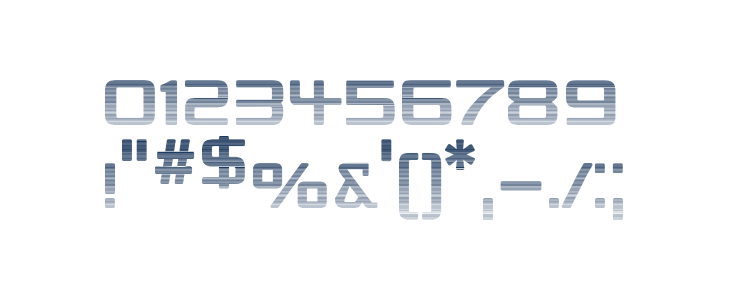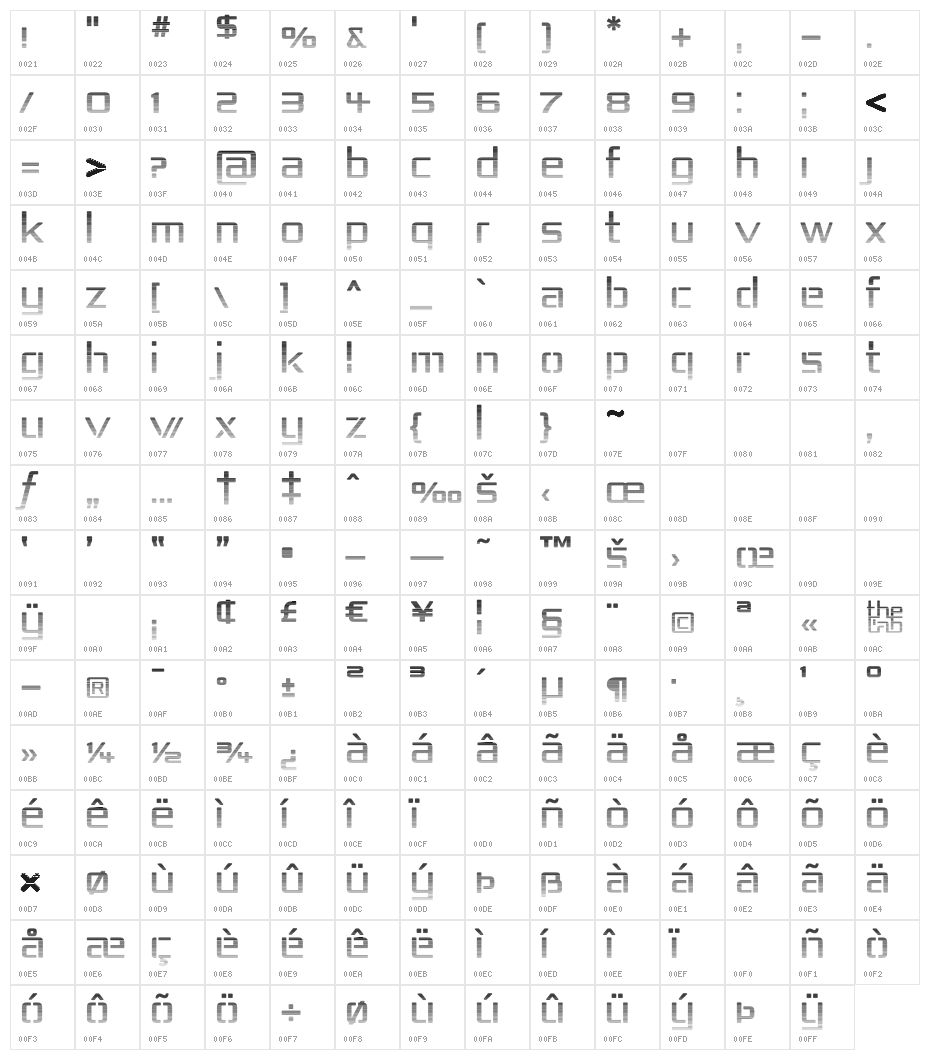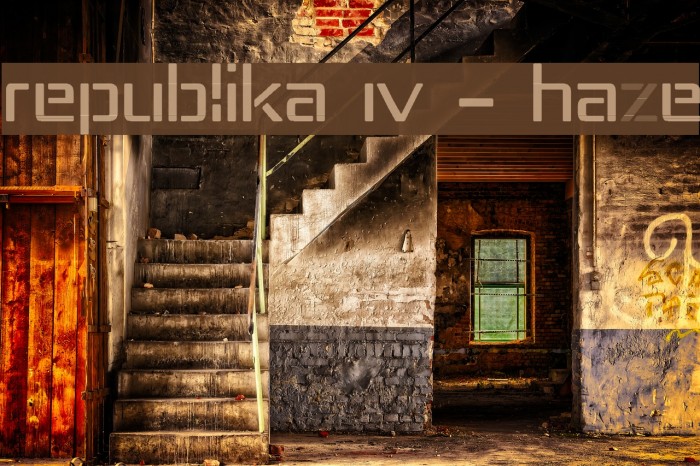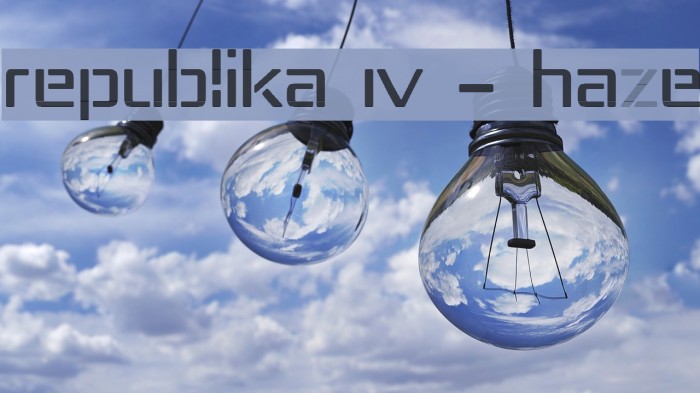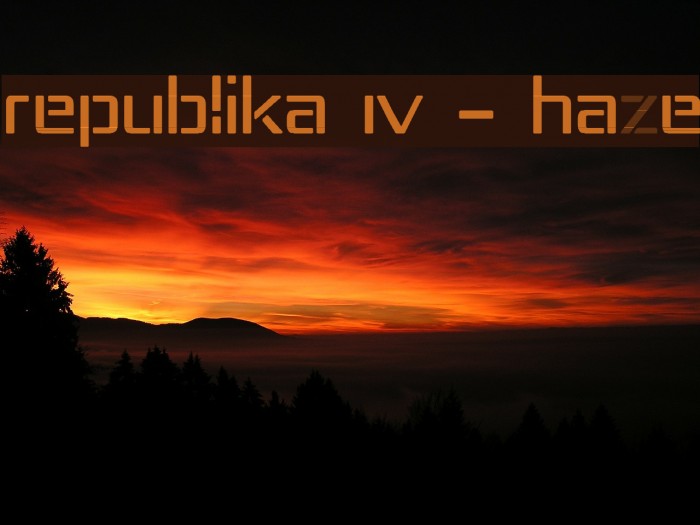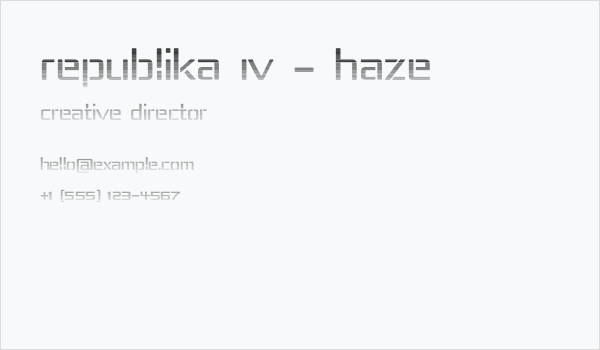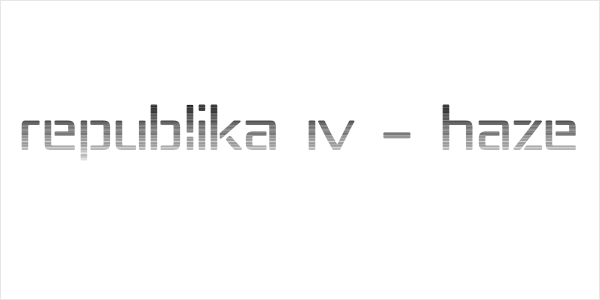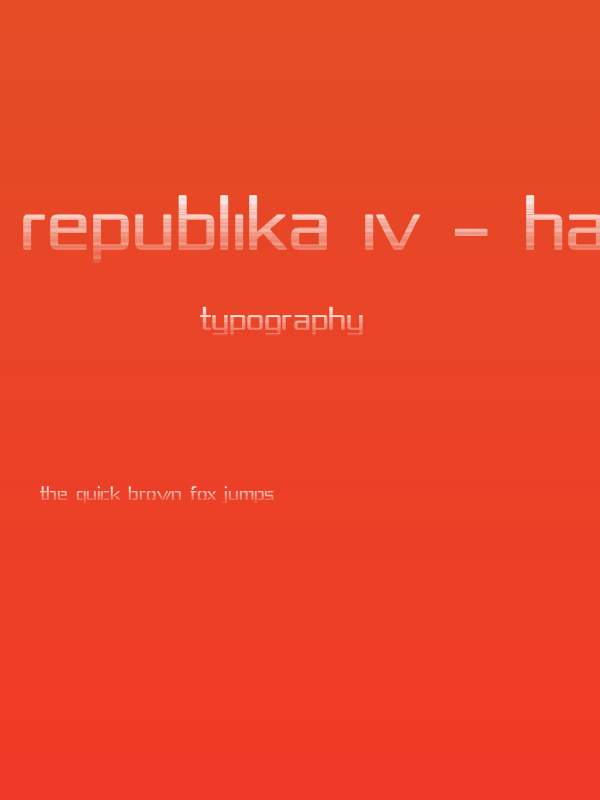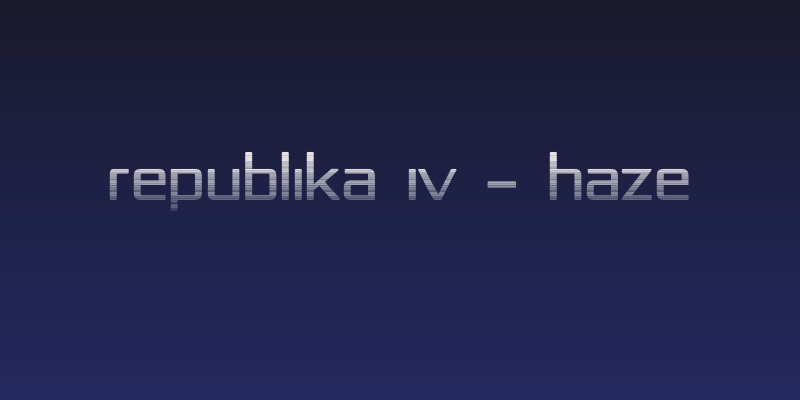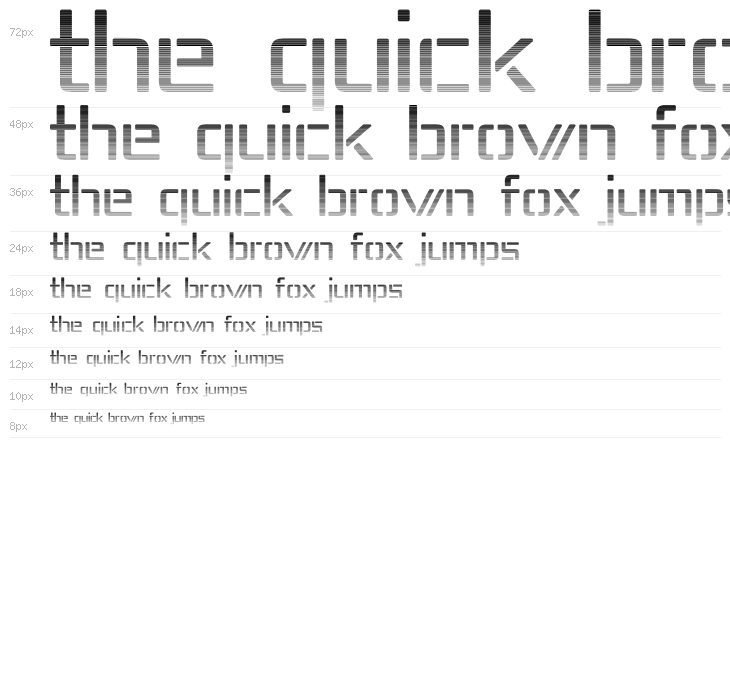
Republika IV - Haze Font
Republika IV - Haze Description
This font features a modern, futuristic design with a distinct digital aesthetic. The characters are constructed with a series of horizontal lines, creating a gradient effect that gives the font a unique, layered appearance. The geometric shapes and clean lines contribute to its contemporary style, making it suitable for tech-oriented projects. The uppercase and lowercase letters maintain a consistent style, while the numbers and special characters are designed to match the overall theme. The font's structure is both eye-catching and readable, making it versatile for various design applications.